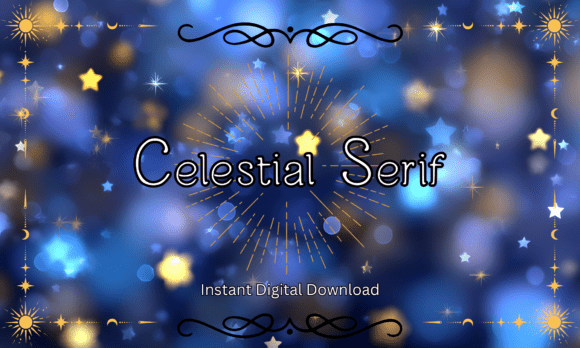
Add a Touch of Magic to Your Designs with Celestial Serif Font
Are you looking for a typeface that can transport your designs to a world of wonder and enchantment? Look no further than Celestial Serif, a dreamy and elegant font inspired by the night sky, stars, and cosmic beauty. With its graceful curves and classic serif styling, this font blends mystical charm with timeless elegance, making it perfect for a wide range of creative projects.
The Inspiration Behind Celestial Serif
As its name suggests, Celestial Serif is a font that draws inspiration from the celestial world. The night sky, with its twinkling stars and majestic planets, has always been a source of fascination and awe. This font captures the essence of that magic, infusing your designs with a sense of wonder and enchantment. Whether you’re creating designs for a fantasy brand, an astrology project, or a romantic invitation, Celestial Serif is the perfect choice.
Key Features of Celestial Serif
- Elegant Serif Styling: Celestial Serif features classic serif styling with a modern twist, making it perfect for designs that require a touch of sophistication and elegance.
- Celestial Inspiration: The font’s design is inspired by the night sky, stars, and cosmic beauty, giving it a unique and mystical charm.
- Graceful Curves: The font’s curves are smooth and flowing, adding to its elegant and dreamy feel.
- Clean and Readable: Despite its decorative nature, Celestial Serif is clean and readable, making it perfect for body text and headings.
Celestial Serif is a versatile font that can be used for a wide range of creative projects, including:
- Astrology & Zodiac Designs: Create stunning astrology charts, zodiac signs, and spiritual logos with Celestial Serif.
- Fantasy & Celestial Artwork: Add a touch of magic to your fantasy artwork, celestial illustrations, and dreamy landscapes.
- Book Covers & Author Branding: Use Celestial Serif to create eye-catching book covers, author logos, and book branding materials.
- Logos & Boutique Branding: Create elegant and sophisticated logos, business cards, and branding materials for your boutique business.
- Invitations & Stationery: Add a touch of whimsy and romance to your invitations, stationery, and greeting cards.
- Wall Art & Prints: Create stunning wall art, prints, and posters with Celestial Serif.
- Social Media Graphics: Use Celestial Serif to create engaging social media graphics, quotes, and inspirational messages.
In conclusion, Celestial Serif is a beautiful and elegant font that can add a touch of magic to your designs. With its celestial inspiration, classic serif styling, and clean and readable design, it’s perfect for a wide range of creative projects. Whether you’re a designer, crafter, or DIY enthusiast, Celestial Serif is a must-have font in your collection.